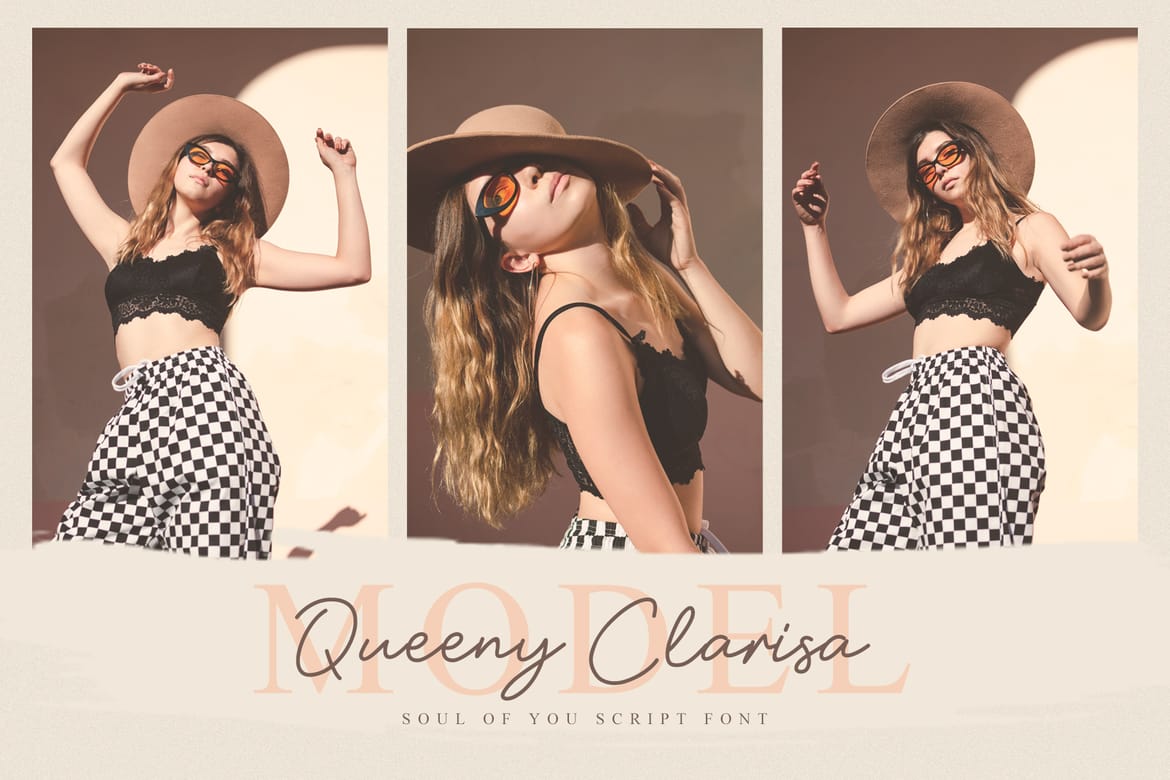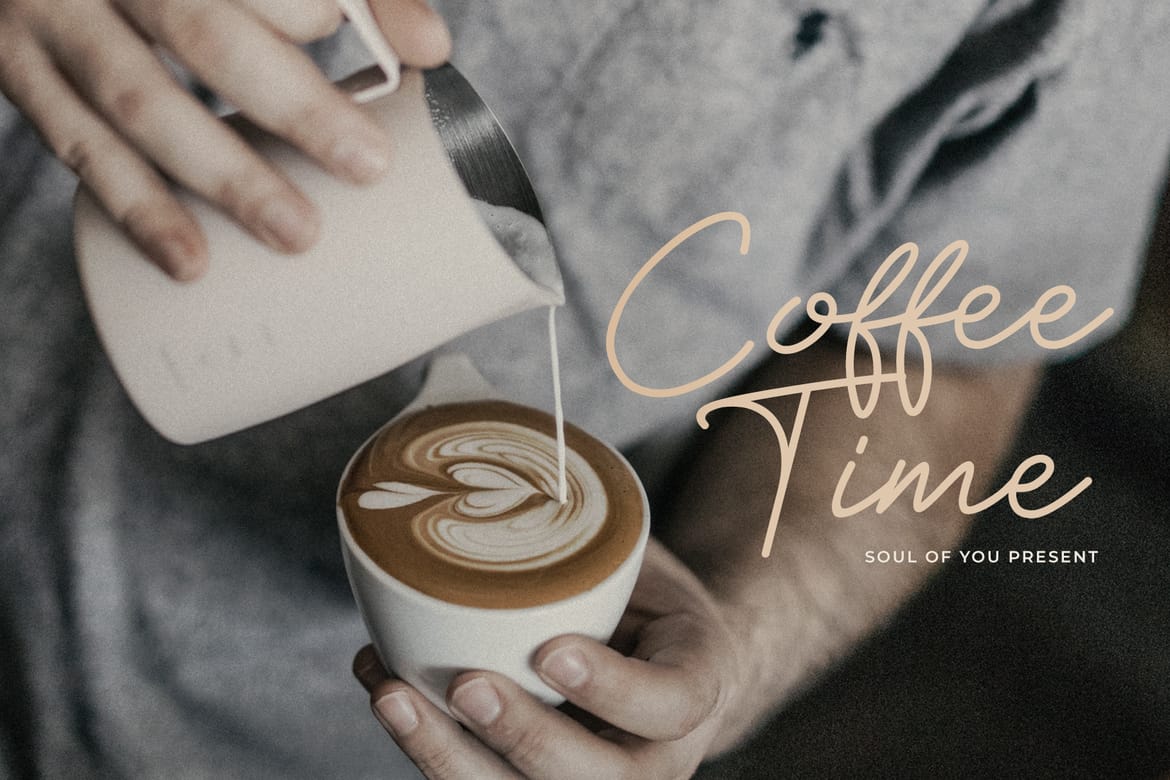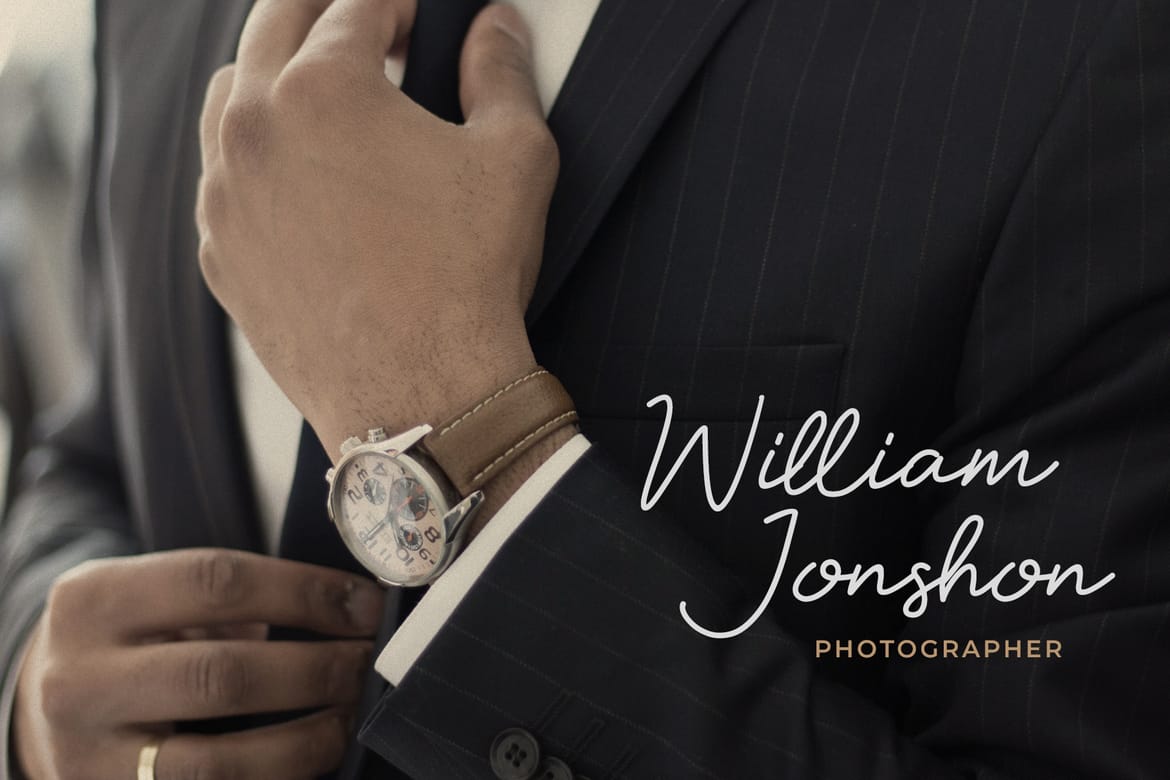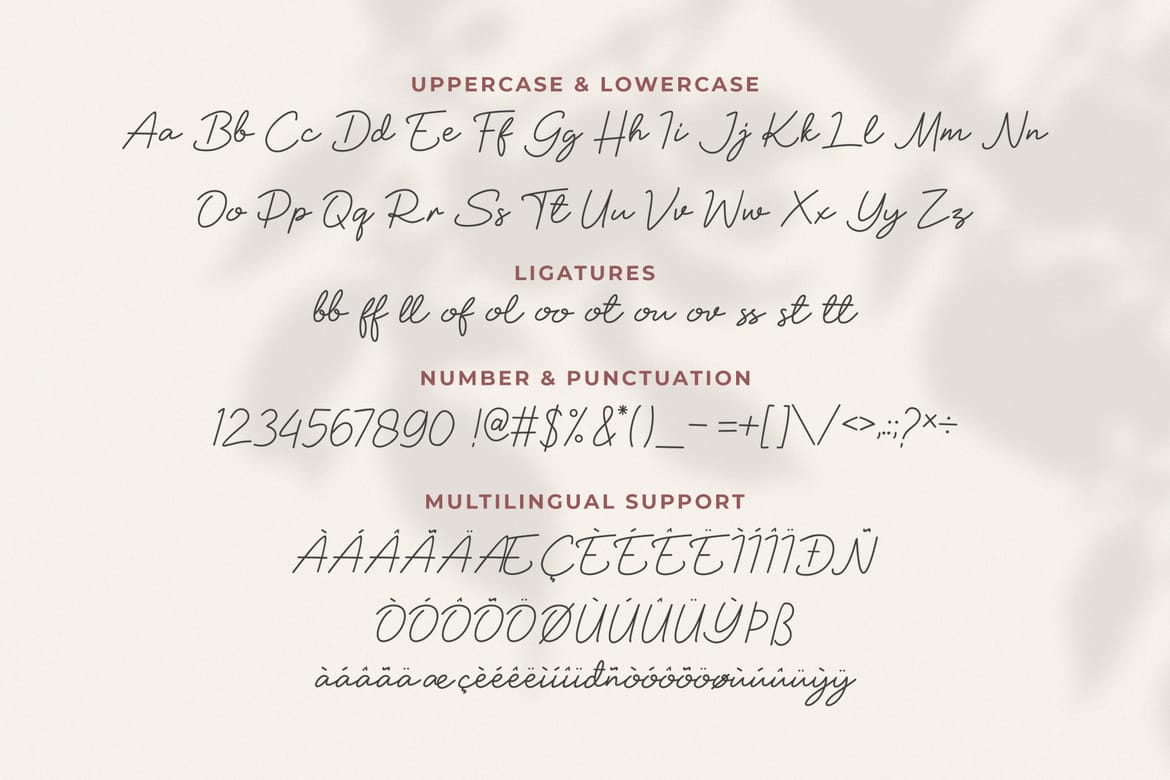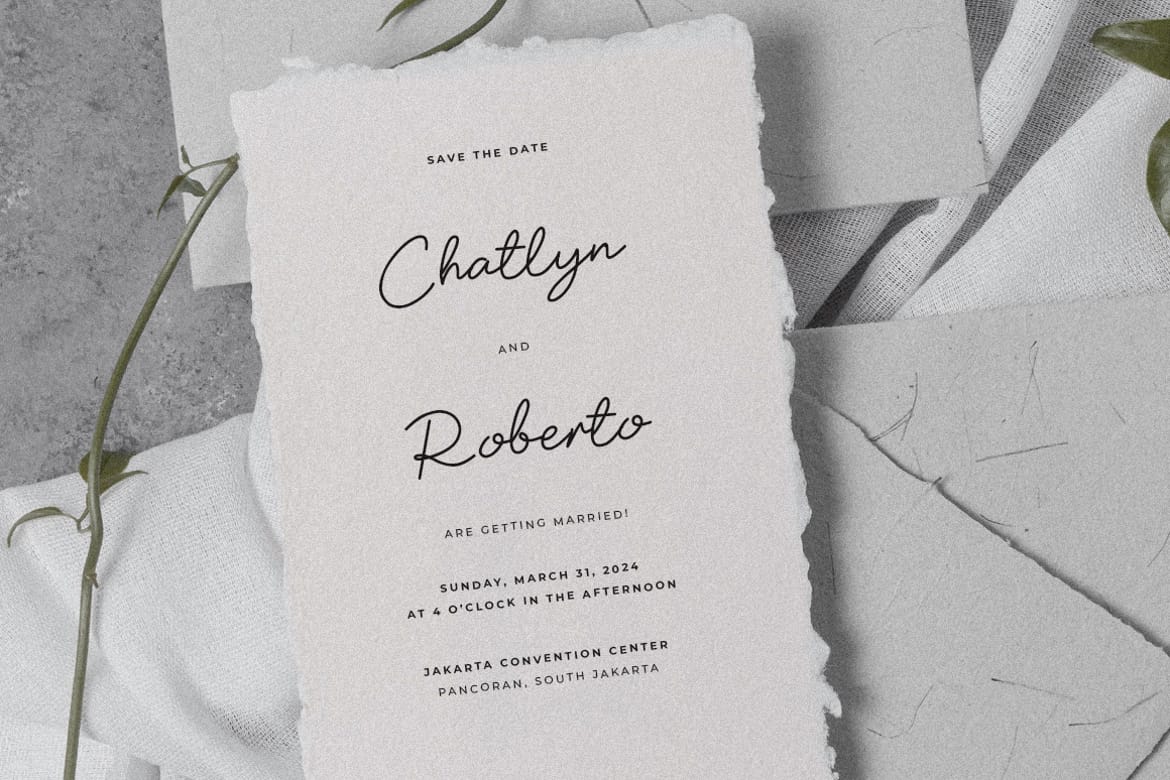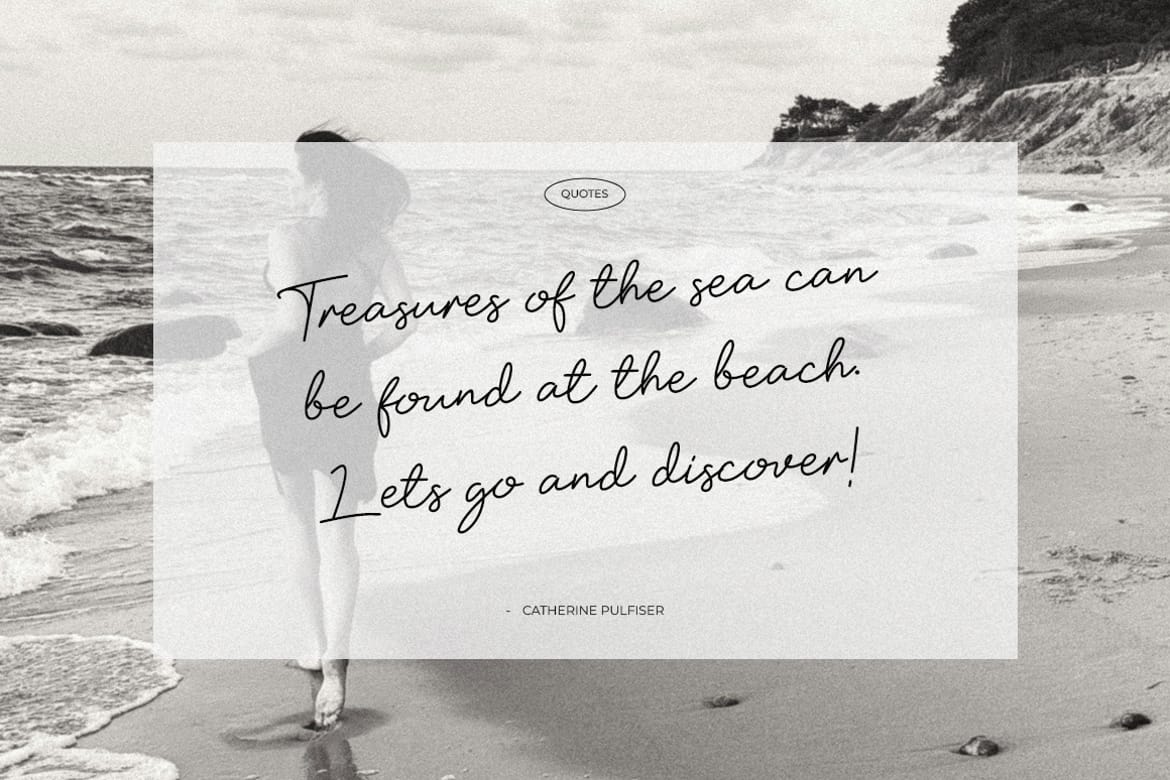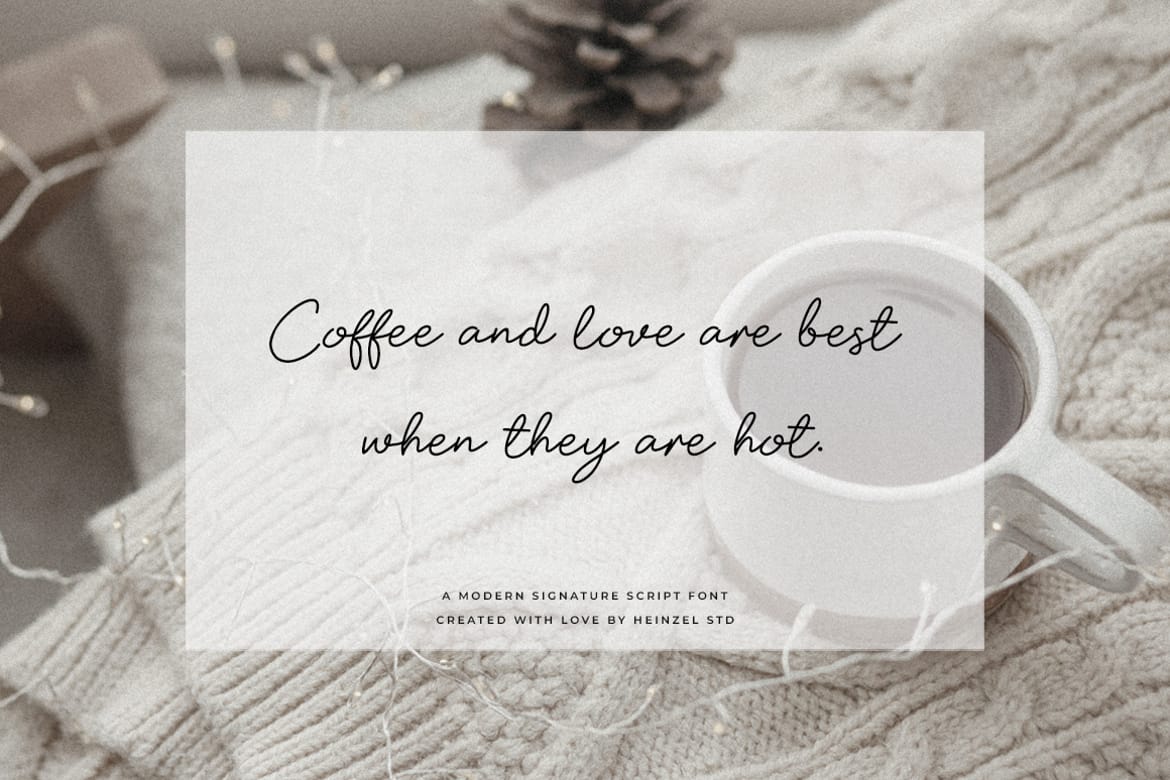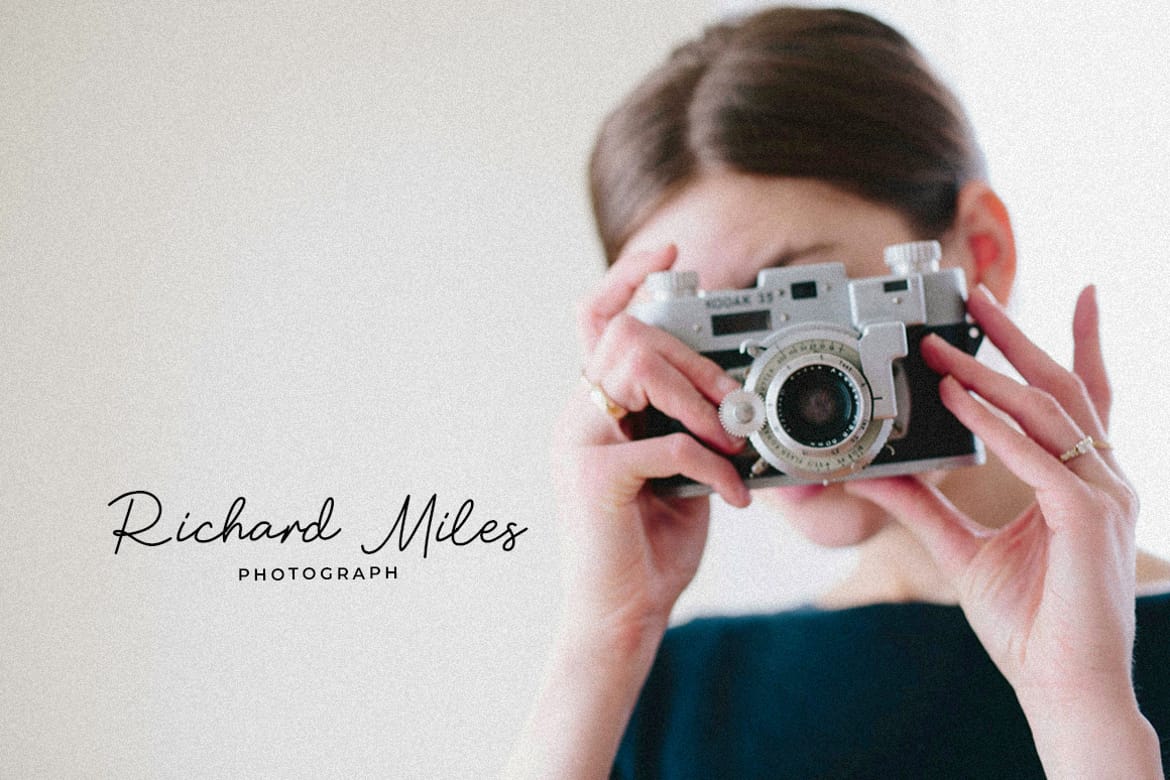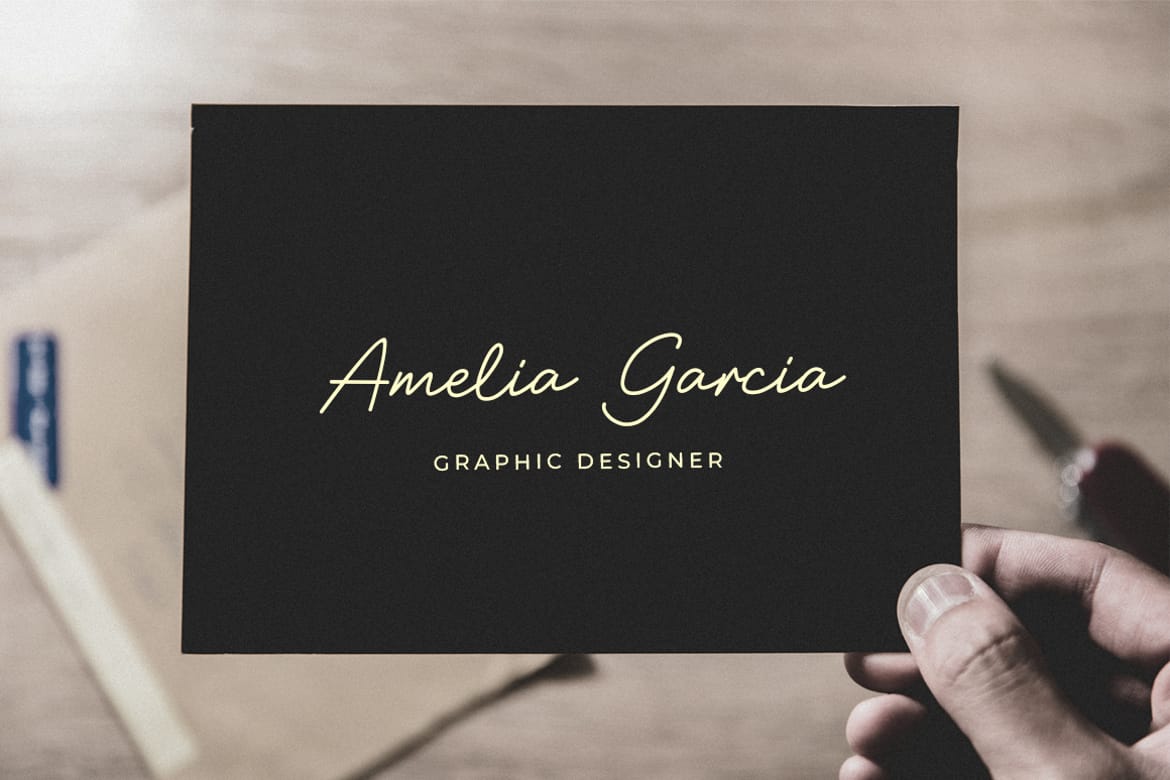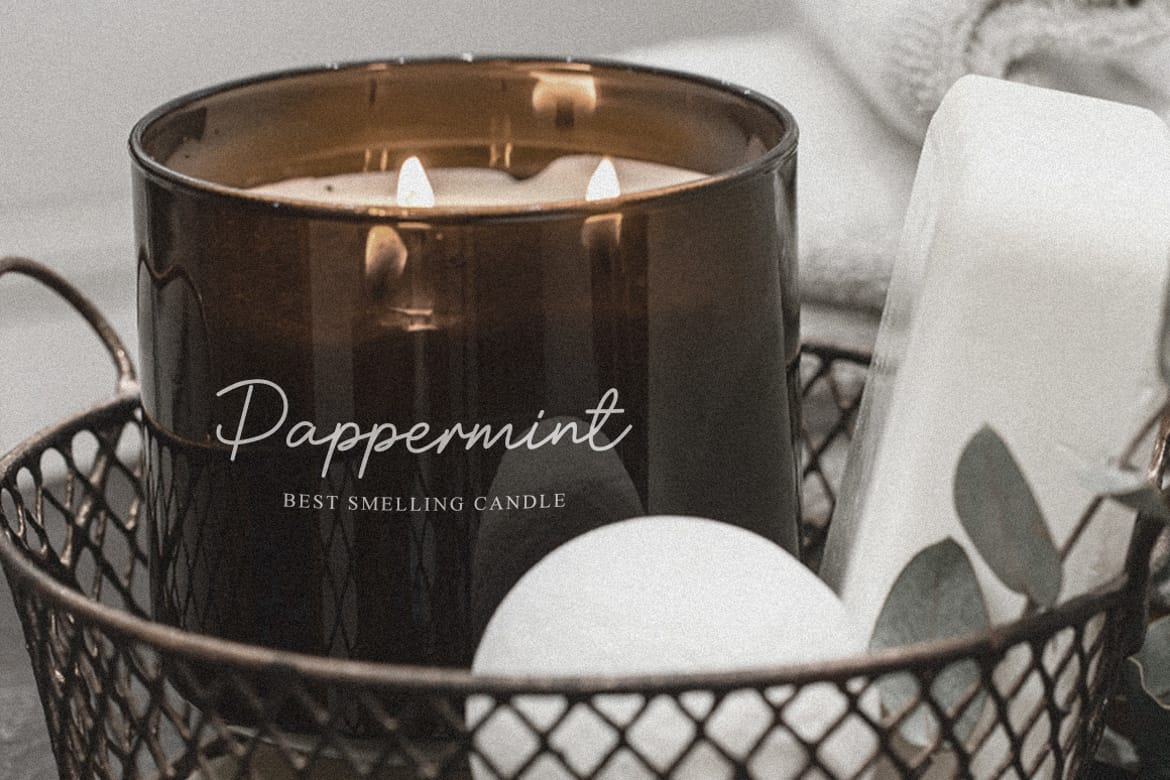
Soul Of You is a modern signature script font crafted with elegant handwritten strokes and a natural flowing style. Designed to bring a luxurious and personal touch, this font is perfect for branding, wedding invitations, logos, social media posts, photography watermarks, fashion editorials, packaging, and stylish quotes. Its smooth curves and minimalist signature look create a sophisticated aesthetic that feels both modern and timeless.
- Ligatures
- Multilingual Support